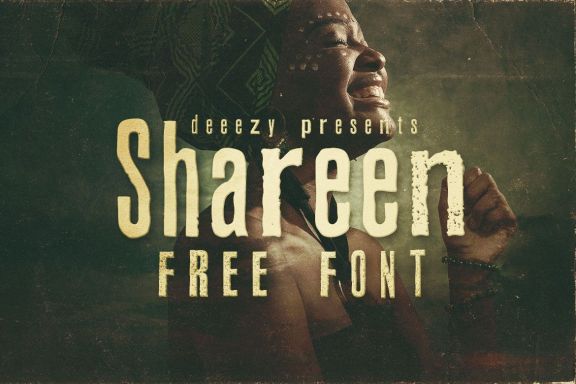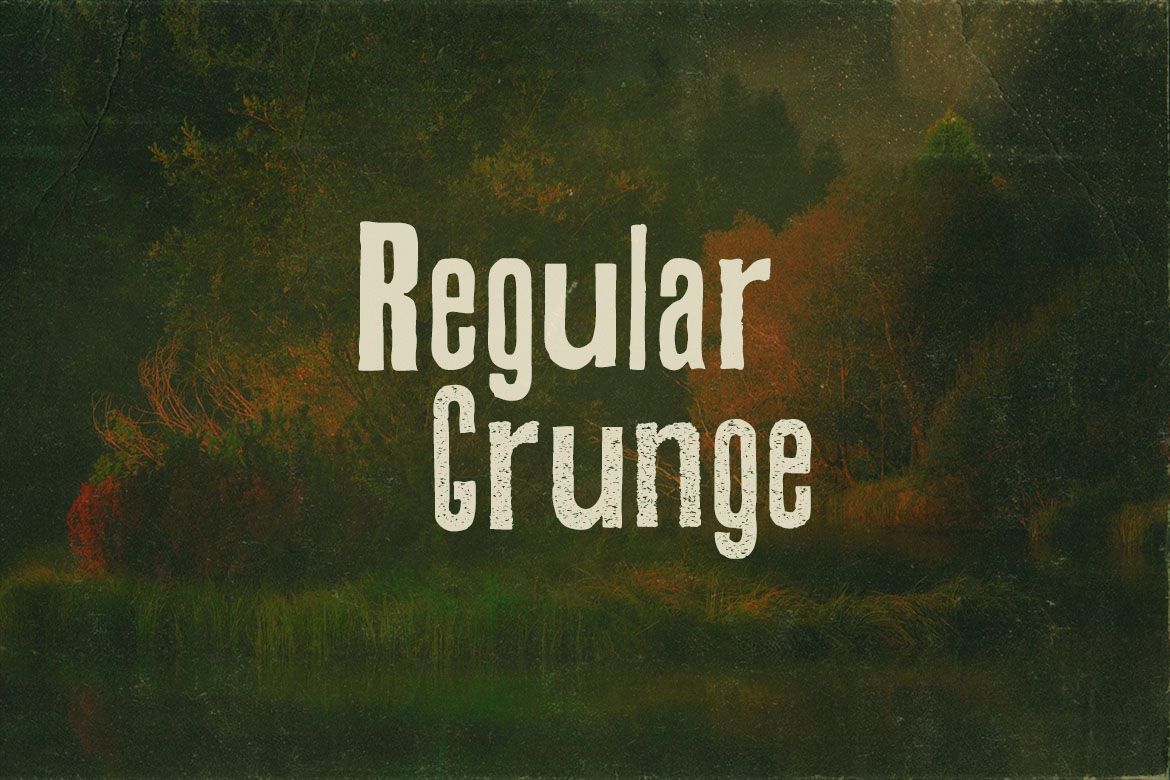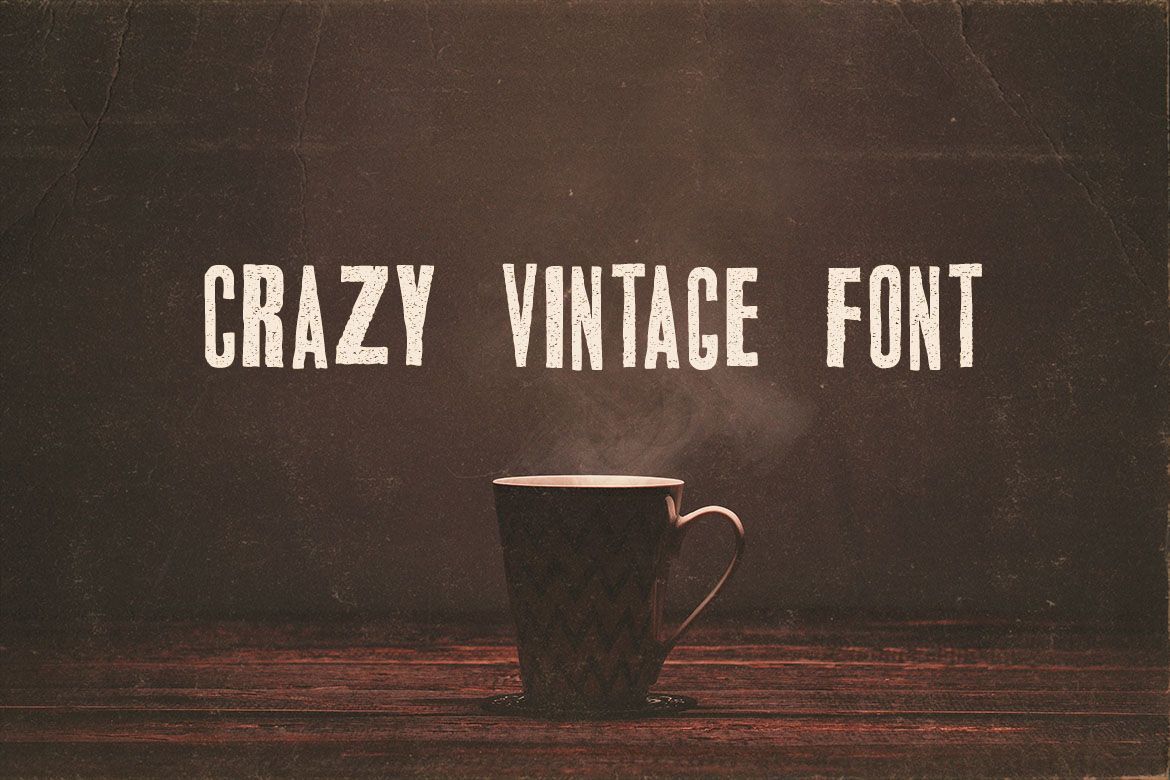
Shareen - Free Font Deeezy
Crazy style vintage font for your new projects...only main characters
• 2 font versions: regular & grunge
• crazy style vintage font